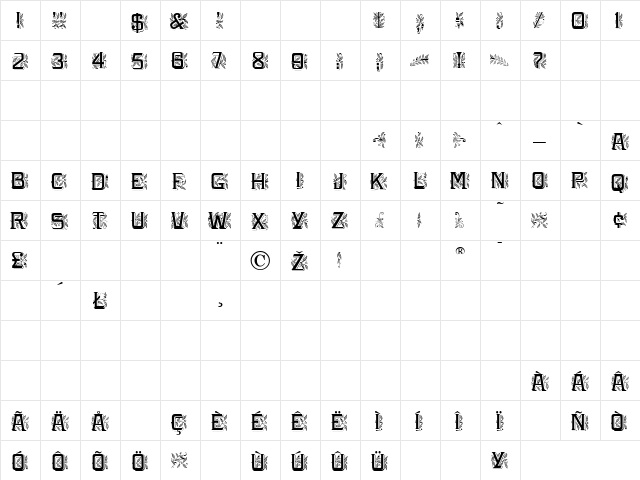
Arboret Normal
Design Context for Arboret Typeface
Arboret is a composed and adaptable typeface that performs quietly and consistently across a wide range of design contexts.